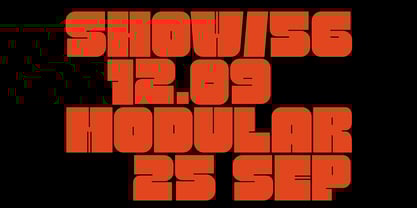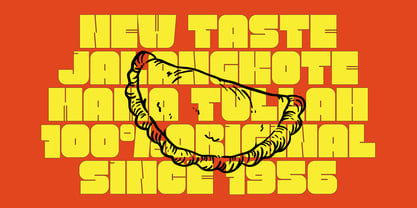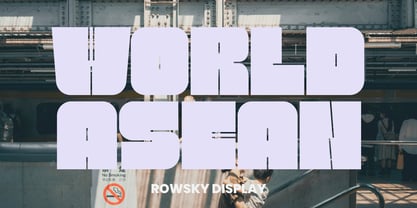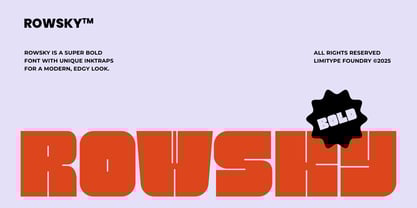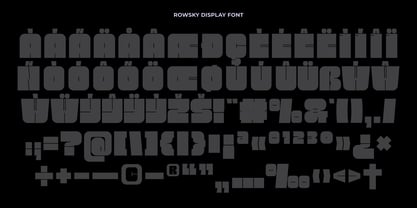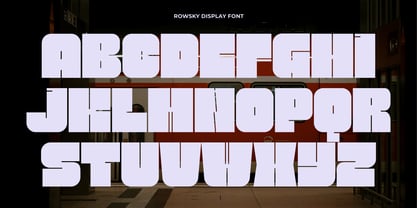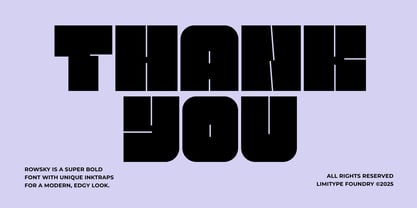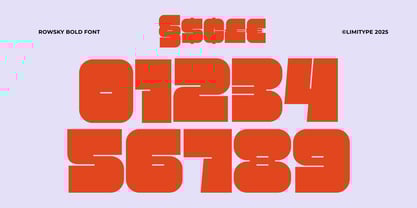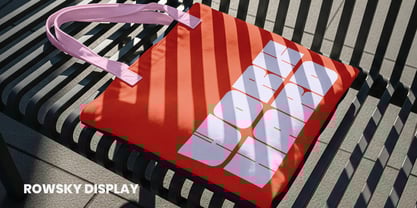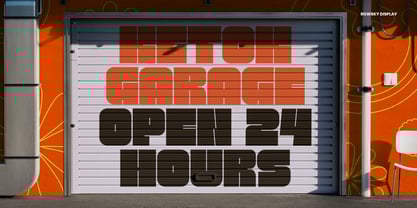
Rowsky
by limitype
The Rowsky Font Family was designed by Muhammad Muammar, Furqan Sudirman and published by limitype. Rowsky contains 1 styles. More about this family
Rowsky is a super bold font with sturdy, blocky shapes full of character. Its unique inktrap details bring a modern, edgy feel that sets it apart from typical bold fonts. Perfect for headlines, posters, magazine, logos, and visual identities that aim to appear strong, confident, and memorable.